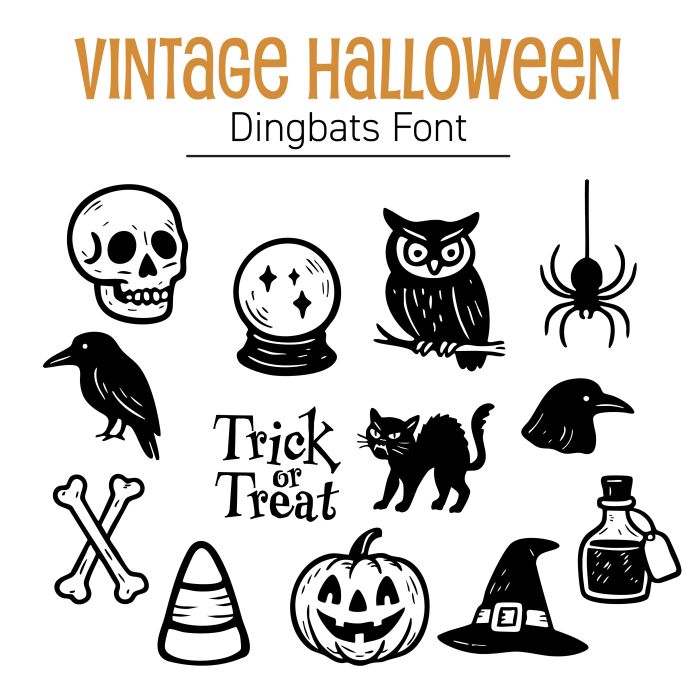
Add a hauntingly charming twist to your fall crafts with this Vintage Style Halloween Dingbat Font Set! Featuring 26 hand-drawn icons in a bold, nostalgic style, this set includes classic Halloween symbols like jack-o'-lanterns, black cats, haunted houses, full moons, bats, ghosts, potions, skulls, candy corn, and more. Each glyph brings the timeless feel of mid-century Halloween ephemera to your digital crafting projects — perfect for makers who love a spooky vintage vibe with a touch of whimsy!
Use this dingbat font to quickly add illustrations to party invitations, Halloween treat bags, handmade cards, scrapbook pages, printable decor, and DIY t-shirts. Pair it with your favorite vintage-style typeface to create professional-looking designs with a handmade flair!
This dingbat font works beautifully with black adhesive vinyl, heat transfer vinyl (HTV), cardstock, vellum, and kraft paper to create layered paper art, decals, stencils, and wearables. Cut the icons out of glitter or foil vinyl for a glamorous twist, or keep it classic with matte black on orange for an authentic retro feel.